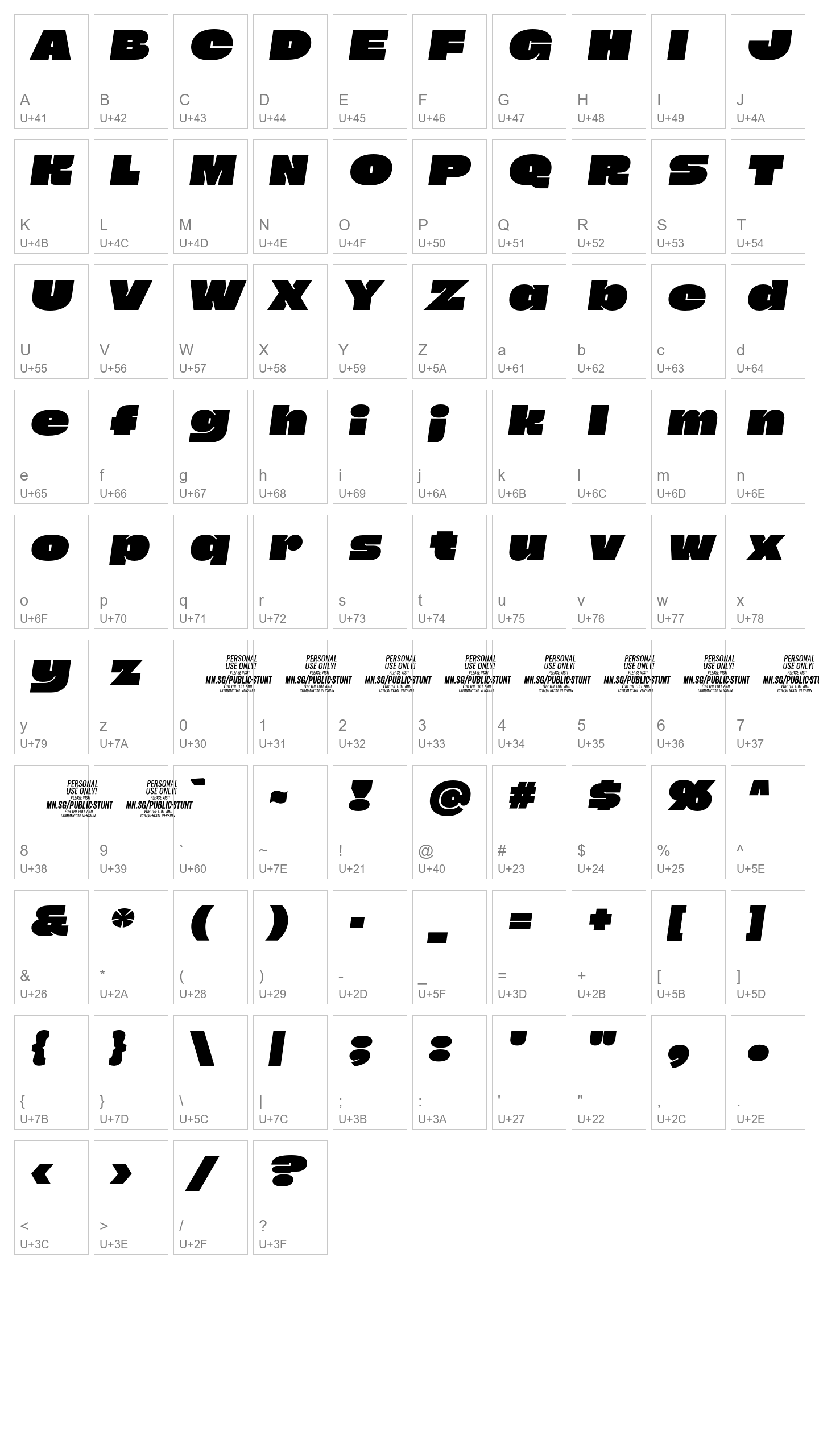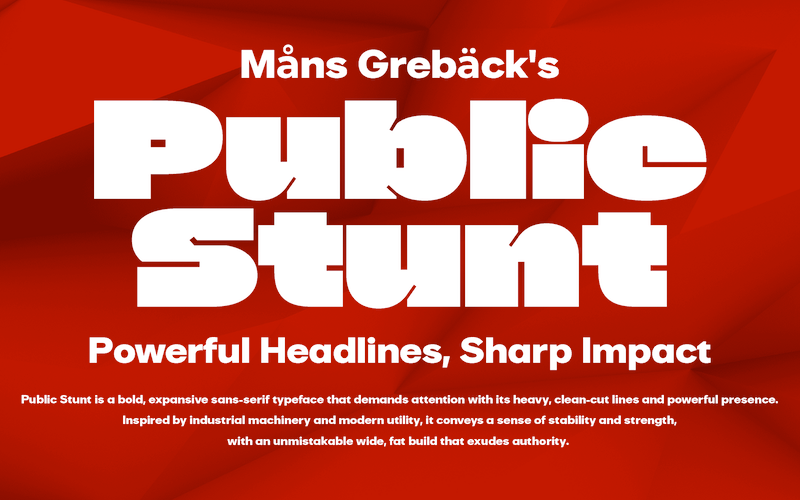
Public Stunt
Public Stunt is a bold, expansive sans-serif typeface.
Inspired by industrial machinery and modern utility, it demands attention with its heavy, clean-cut lines and powerful presence.